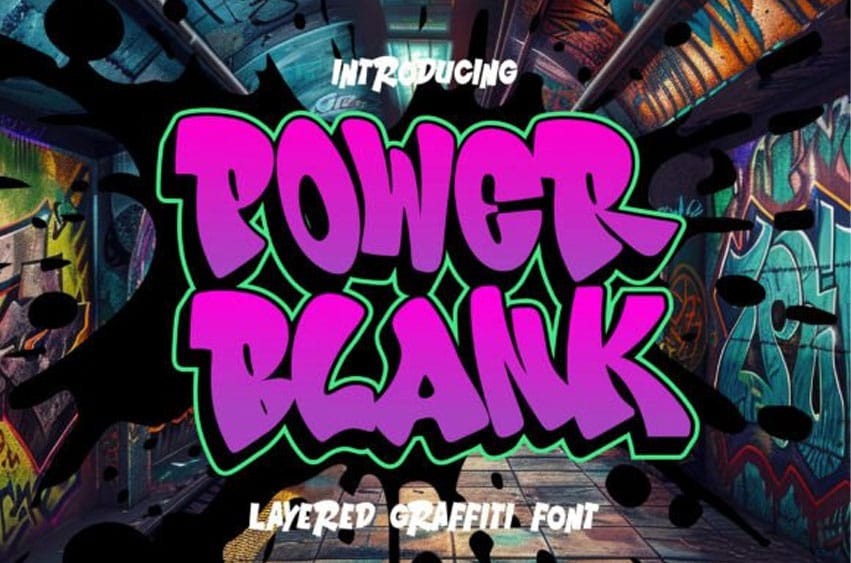
Power Blank Font: Imbue your designs with the pulsating vibrancy of street art aesthetics. Power Blank is a bold, layered graffiti-inspired typeface.
Its chunky bubble letters bordered by robust lines are perfect to add striking visual appeal to everything from logos, event flyers, apparel designs, and digital graphics. Power Blank’s layering facility opens a world of creative possibilities, giving you the chance to mix colors and effects, creating mind-blowing typographic dynamism.
Ideal for various design challenges – branding, social media content, or adventurous marketing blitzes – Power Blank packs a power punch, lending a raw, youthful, and edgy flair to your projects. Power Blank’s user-friendly features and versatility make it an irresistible tool in the arsenal of designers with a penchant for graffiti art and making stand-out work.